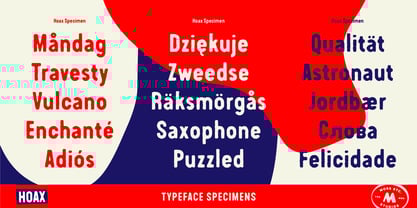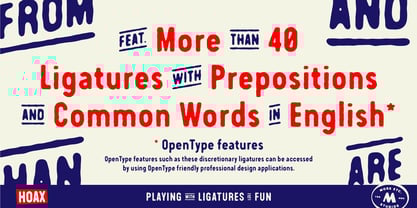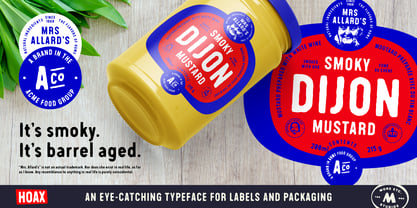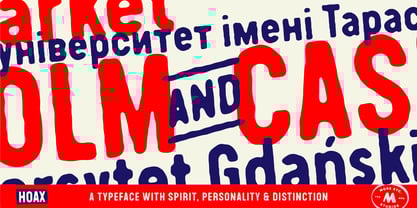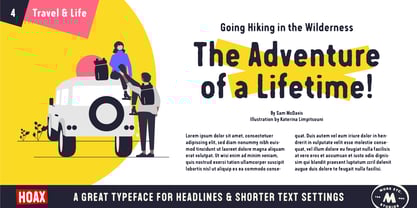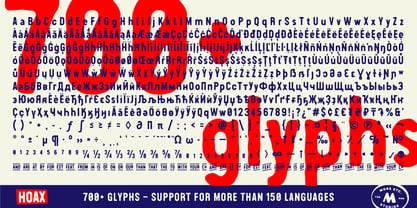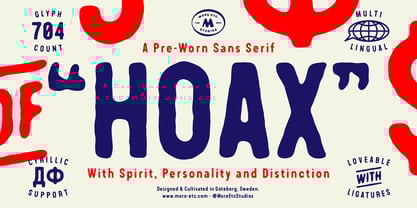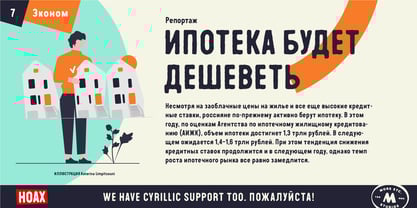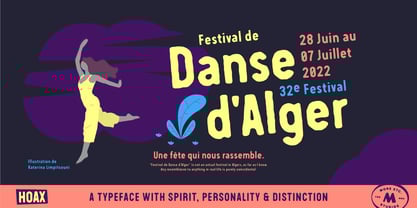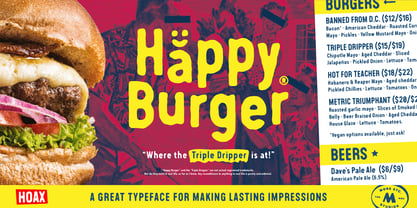
Hoax
by More Etc
The Hoax Font Family was designed by Robert Samsonowitz and published by More Etc. Hoax contains 1 styles.
Introducing Hoax – a pre-worn sans serif with spirit, personality and distinction.
This bold and semi-condensed sans serif is inspired by old copy machines and vintage prints. It is lively and eye-catching, ideal for where and when you want to make a lasting impression.
Hoax is a celebration of character, a tribute to curiosity. Use this typeface and let everyone know that you mean business.
OPENTYPE FEATURES: This font includes over 40 discretionary ligatures of prepositions and common words in English. These OpenType features can be accessed using OpenType friendly applications that allow the use of discretionary ligatures and stylistic sets.
MULTILINGUAL SUPPORT: With over 700 glyphs, it has support for more than 150 languages, including Cyrillic script.
List of discretionary ligatures: AND, ARE, AT, BY, FOR, EST, FEAT., FROM, IN, IS, OF, ON, OR, OUR, THAN, THAT, THE, TO, WITH, YOUR, CO. Each word is available in both upright and slanted versions.